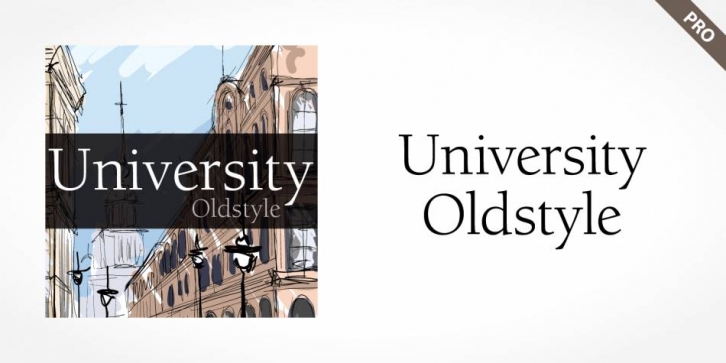
University Oldstyle Pro is a serif font family. This typeface has eight styles and was published by SoftMaker.
University Oldstyle became a very successful face for book typography. It was designed to have the greatest legibility possible, and it is indeed free from the exuberances in some of his other faces. University Oldstyle Pro is a crisply beautiful tribute to a distinguished typeface, and it works well for books, magazines, and advertising display.
· University Oldstyle Pro Regular
· University Oldstyle Pro Italic
· University Oldstyle Pro Medium
· University Oldstyle Pro Medium Italic
· University Oldstyle Pro Bold
· University Oldstyle Pro Bold Italic
· University Oldstyle Pro Black
· University Oldstyle Pro Black Italic